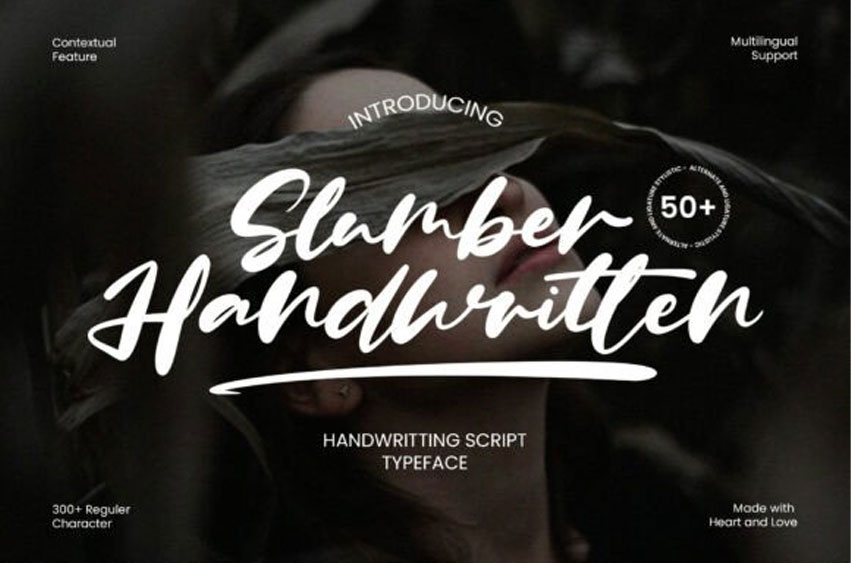
Slumber Handwriting Font is a modern, relaxed script font with a touch of natural elegance. Designed with over 300+ characters and 50+ stylistic alternates, this typeface gives your designs a handwritten charm that feels personal and heartfelt.
Perfect for branding, logos, social media, wedding invites, and quote designs. Slumber Handwritten comes in OTF & TTF formats, complete with multilingual support and contextual features — crafted with heart and love.